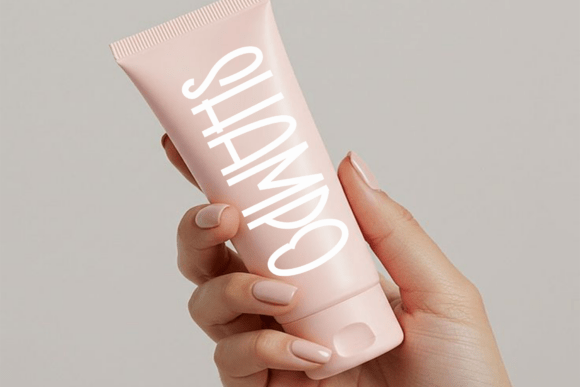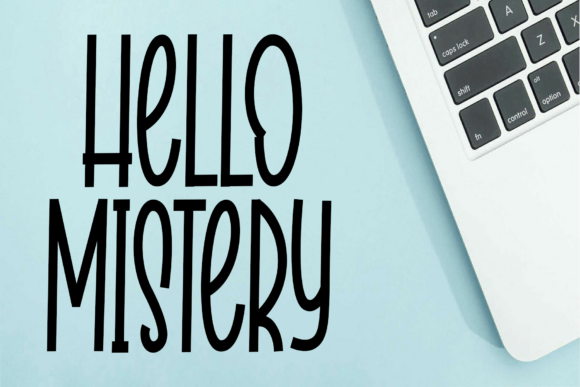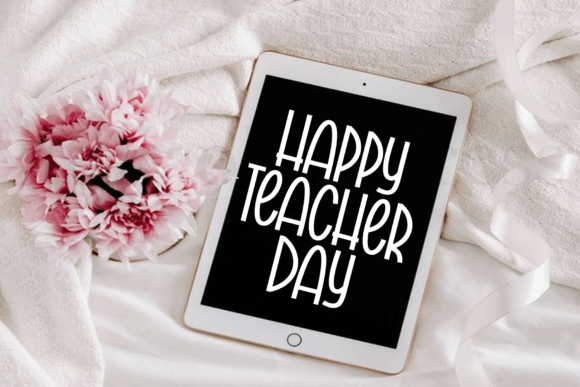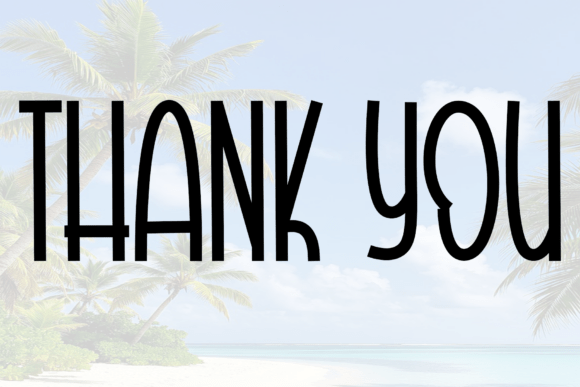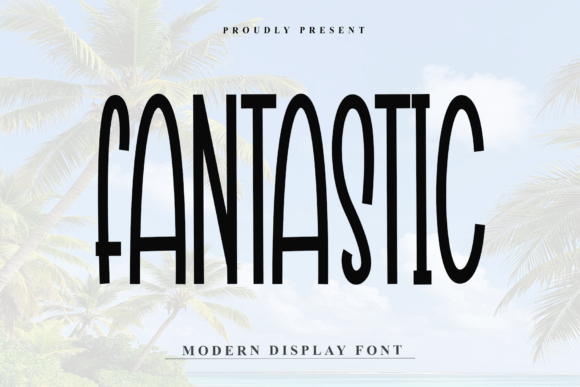
Introducing Fantastic: The Ultra-Tall Display Font That’s About to Take Your Designs to New Heights
Are you tired of using the same old fonts that seem to blend into the background? Look no further than Fantastic, an ultra-tall, condensed display font that’s designed to bring a breezy, modern energy to your creative projects. With its elongated proportions and playful, hand-finished touch, Fantastic is the perfect choice for designers and crafters looking to make a massive impact without crowding their canvas.
A Unique Hand-Drawn Geometric Structure
One of the standout features of Fantastic is its unique hand-drawn geometric structure. This font combines sharp slab-style serifs with soft, organic curves, creating a visually striking contrast that’s sure to grab attention. The extreme verticality of Fantastic makes it the ultimate choice for a variety of design applications, from summer-themed posters and travel branding to bold headlines and vibrant apparel design.
The Perfect Choice for Designers and Crafters
Whether you’re a designer looking to create a stunning visual identity for a client or a crafter seeking to add a personal touch to your DIY projects, Fantastic is the perfect choice. This font is designed to provide an instant focal point that’s as refreshing as a coastal breeze. Imagine framing a tropical paradise or a high-fashion editorial with a font that’s as bold as its name suggests. With Fantastic, you can give your projects a sense of scale and adventure that’s sure to leave a lasting impression.
Key Features of Fantastic
- Ultra-tall and condensed design: Fantastic is designed to make a massive impact without crowding your canvas.
- Unique hand-drawn geometric structure: Combining sharp slab-style serifs with soft, organic curves.
- Playful, hand-finished touch: Adding a personal touch to your designs.
- Extreme verticality: Perfect for summer-themed posters, travel branding, bold headlines, and vibrant apparel design.
- Instant focal point: Providing a sense of scale and adventure to your projects.
Design Applications for Fantastic
So, what can you use Fantastic for? The possibilities are endless! Here are a few ideas to get you started:
- Summer-themed posters: Create eye-catching posters for summer events, promotions, or campaigns.
- Travel branding: Use Fantastic to create a stunning visual identity for travel companies, hotels, or resorts.
- Bold headlines: Add a touch of drama to your headlines with Fantastic’s ultra-tall design.
- Vibrant apparel design: Create stunning apparel designs that are sure to stand out from the crowd.
Why Choose Fantastic?
So, why choose Fantastic over other display fonts? Here are just a few reasons:
- Unique and eye-catching design: Fantastic is sure to grab attention and leave a lasting impression.
- Versatile: Use Fantastic for a variety of design applications, from posters and branding to apparel and headlines.
- Easy to use: Fantastic is a straightforward font to use, even for designers and crafters with limited experience.
In conclusion, Fantastic is an ultra-tall, condensed display font that’s designed to take your designs to new heights. With its unique hand-drawn geometric structure, playful, hand-finished touch, and extreme verticality, Fantastic is the perfect choice for designers and crafters looking to make a massive impact. Whether you’re creating summer-themed posters, travel branding, bold headlines, or vibrant apparel design, Fantastic provides an instant focal point that’s as refreshing as a coastal breeze. So why wait? Give your projects a sense of scale and adventure with Fantastic today!